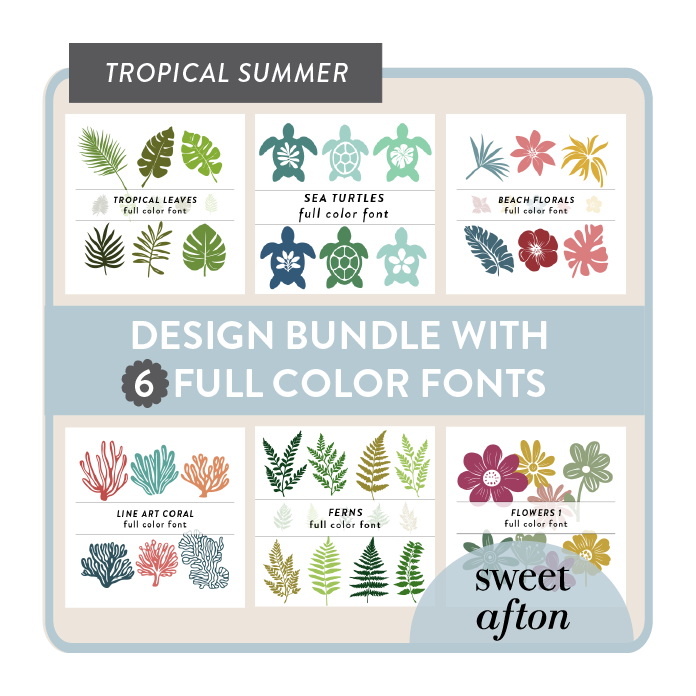
This design bundle contains SIX full color craft fonts in the tropical summer theme. Download for only $9.99 (regular price $34.95)! This bundle contains the following designs: Tropical Leaves D-1281214, Sea Turtles D-1288217, Beach Florals D-1281624, Line Art Coral D-1280137, Ferns D-1280141, and Flowers 1 D-1284382. A great value to finish off those summer projects!